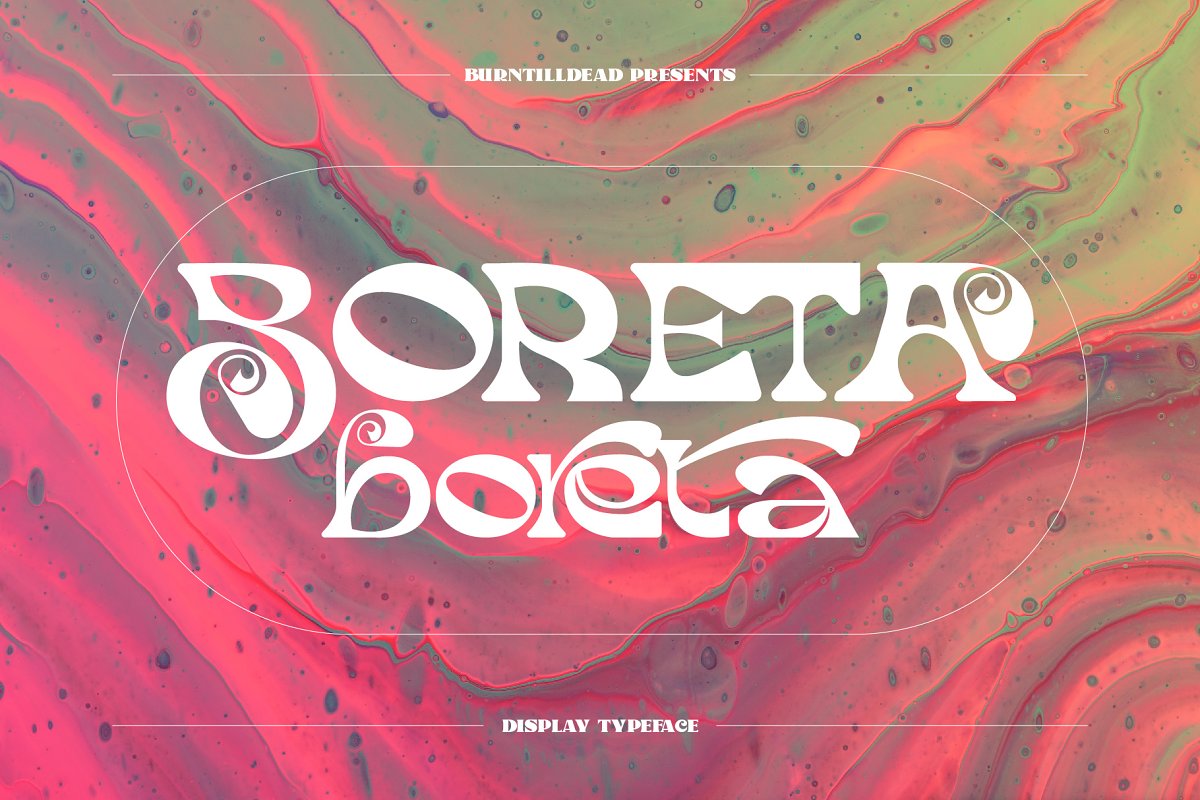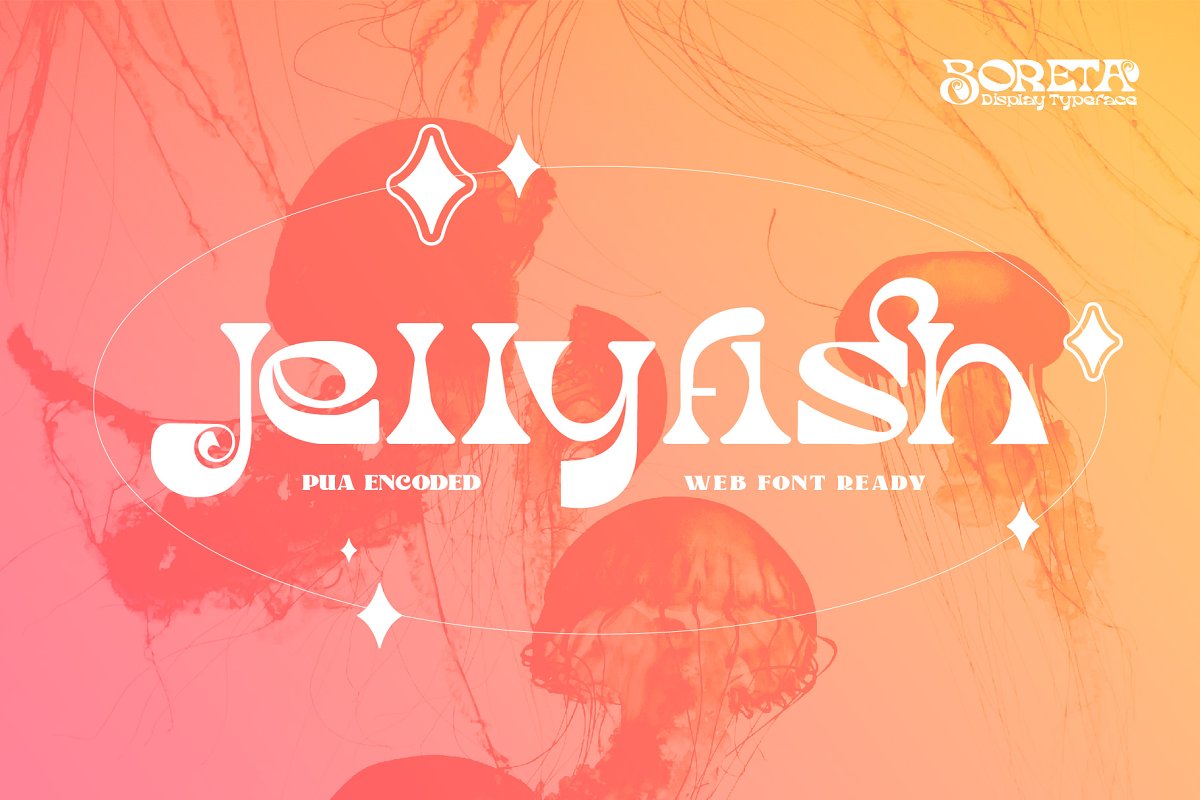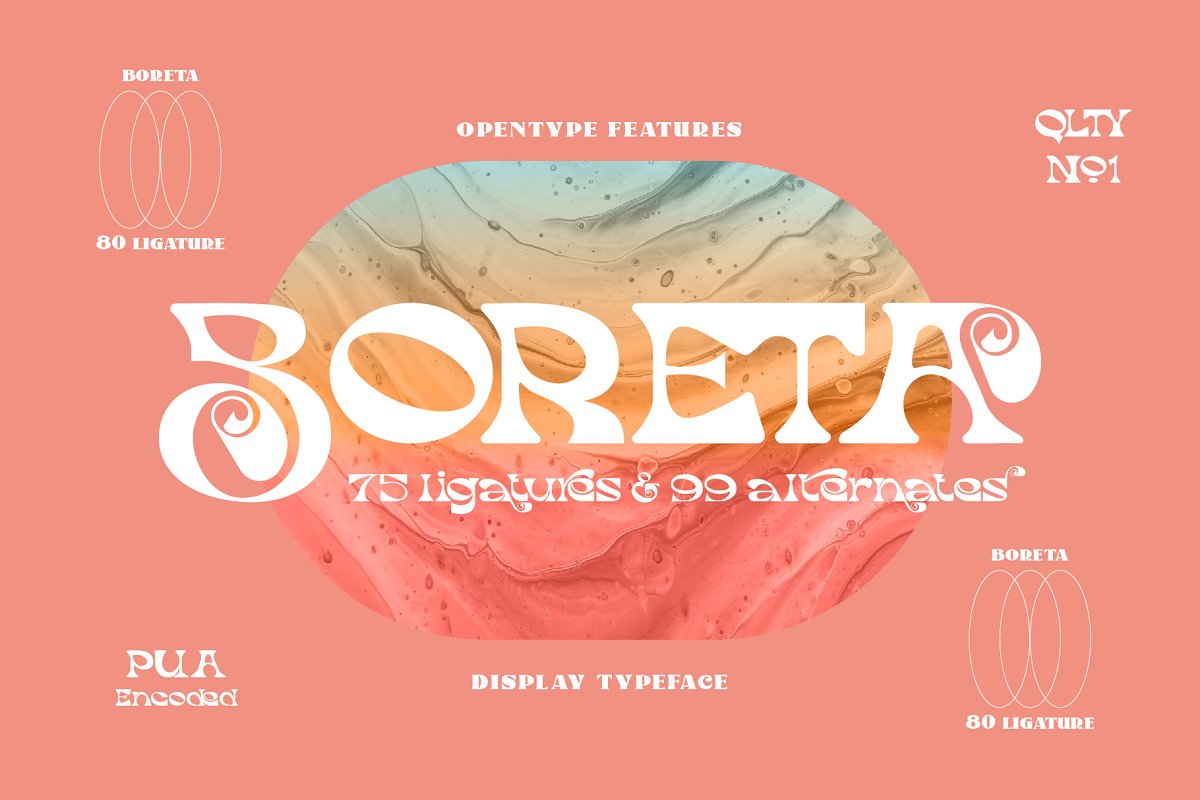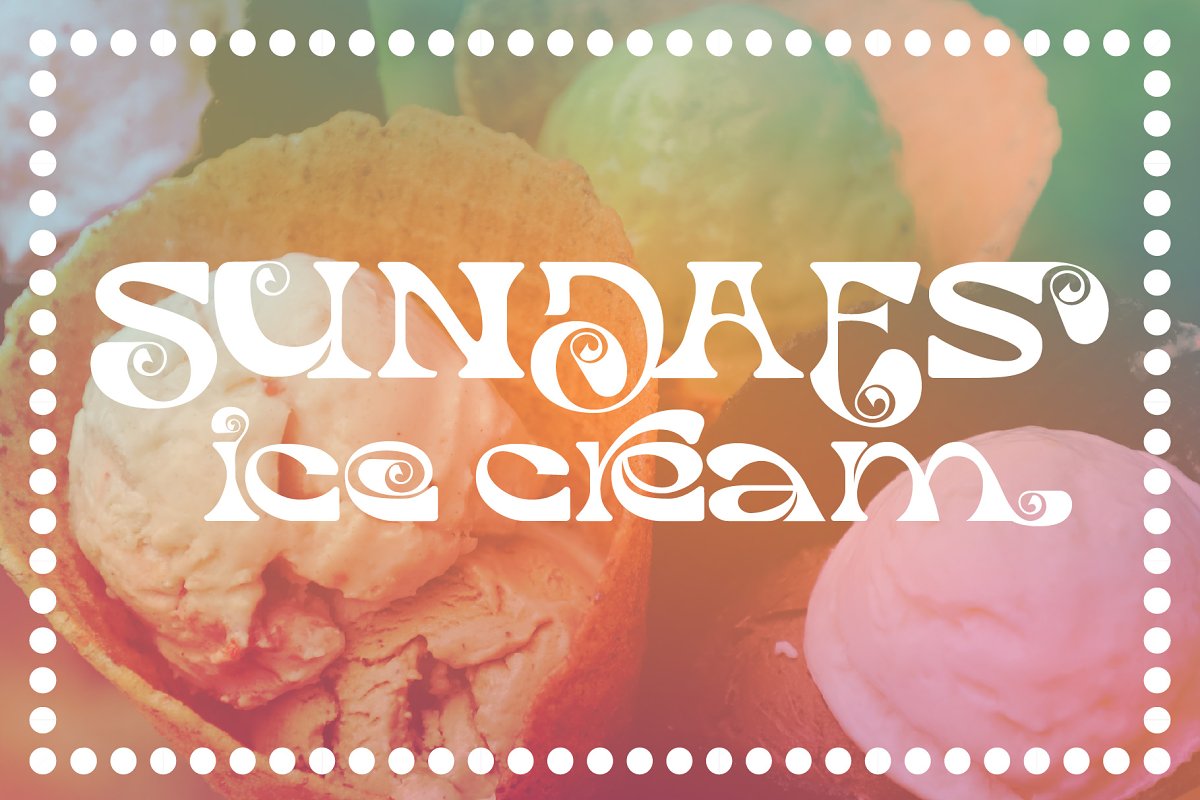
About the Boreta 75 Ligatures & 99 Alternates
Introducing “Boreta” brand new display font with high contrast letterforms, Powered with 75 ligatures & 99 alternates to bring fluent looks combination, Perfect and suitable for branding, headline, logotype, sticker, editorial design, and etc, Multi languages included: Afrikaans, Albanian, Asu, Basque, Bemba, Bena, Cebuano, Chiga, Cornish, Corsican, Danish, Embu, English, Estonian, Filipino, Finnish, French, Friulian, Galician, German, Gusii, Ido, Indonesian, Interlingua, Irish, Italian, Javanese, Jju, Kabuverdianu, Kalaallisut, Kalenjin, Kamba, Kikuyu, Kinyarwanda, Kurdish, Lojban, Low German, Luo, Luxembourgish, Luyia, Machame, Makhuwa-Meetto, Makonde, Malagasy, Malay, Manx, Meru, Morisyen, North Ndebele, Northern Sotho, Norwegian Bokmål, Norwegian Nynorsk, Nyanja, Nyankole, Occitan, Oromo, Portuguese, Romansh, Rombo, Rundi, Rwa, Samburu, Sango, Sangu, Sardinian, Scottish Gaelic, Sena, Shambala, Shona, Slovenian, Soga, Somali, South Ndebele, Southern Sotho, Spanish, Swahili, Swati, Swedish, Swiss German, Taita, Taroko, Teso, Tsonga, Tswana, Turkmen, Vunjo, Walloon, Walser, Xhosa, ZuluProduct Content:Boreta